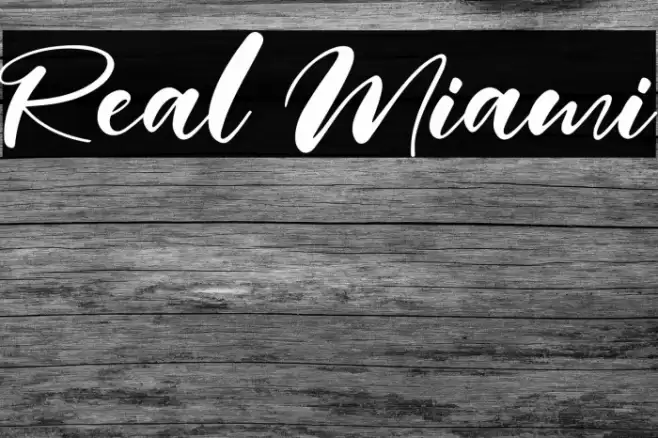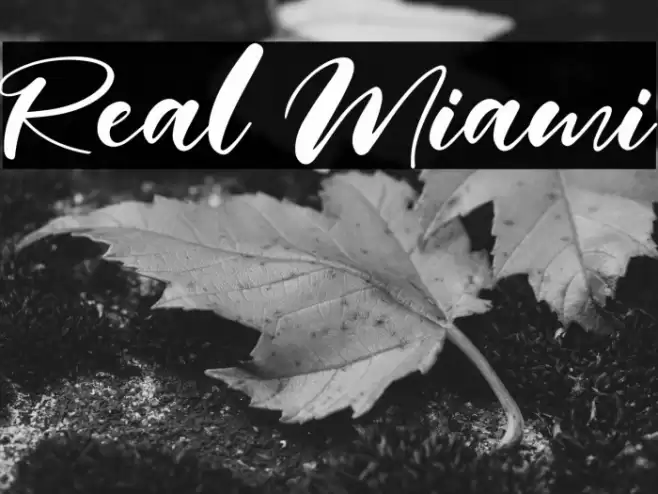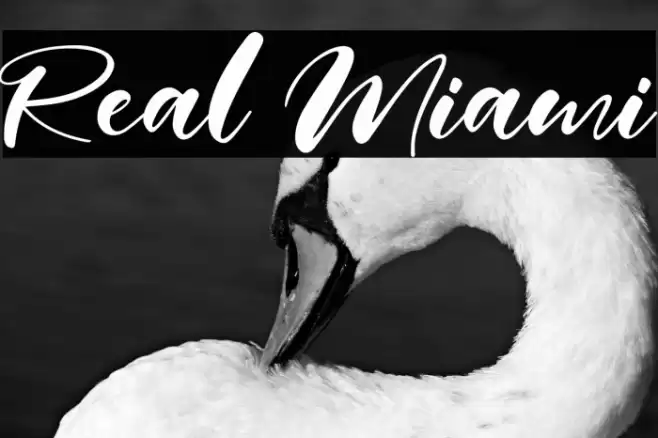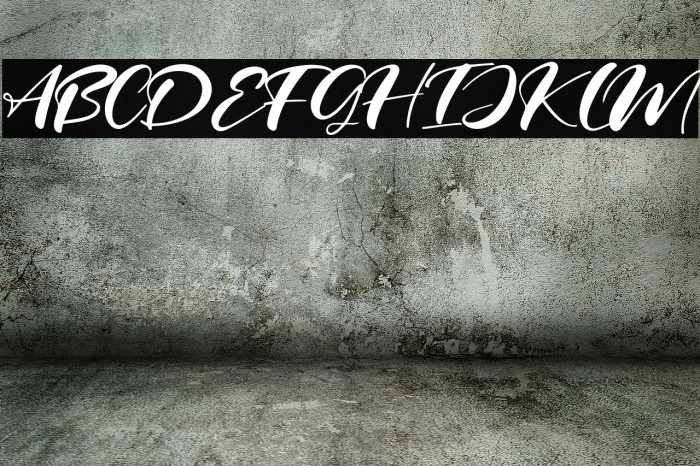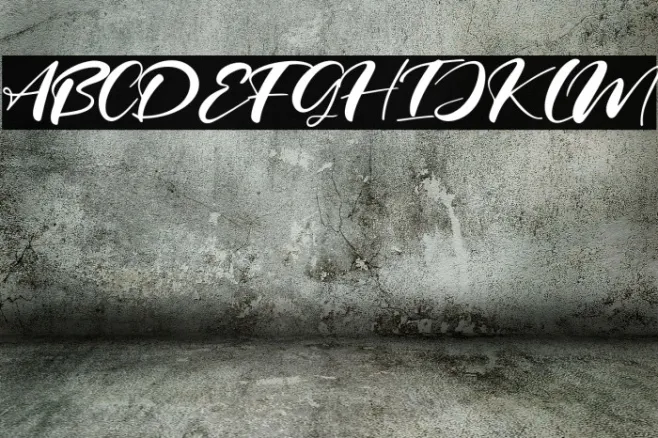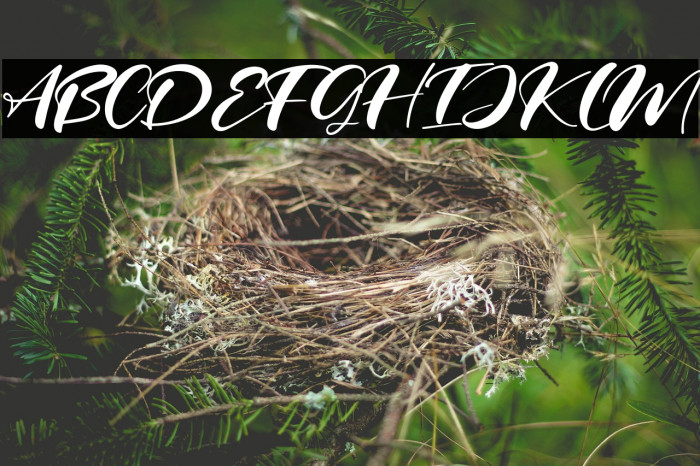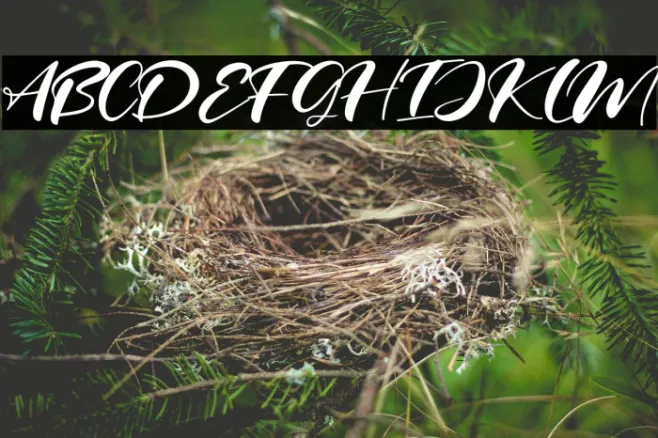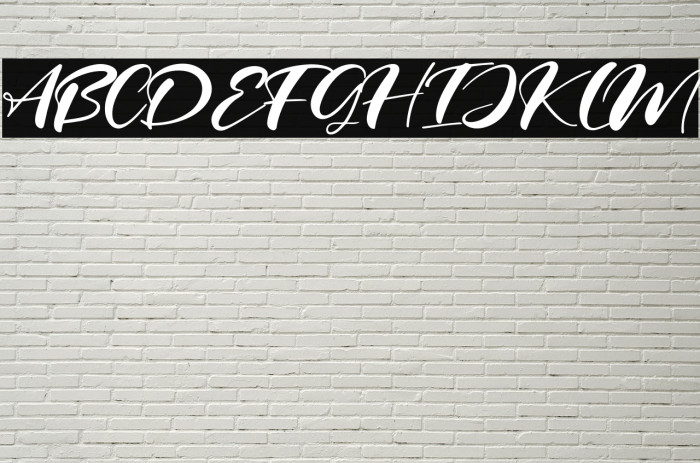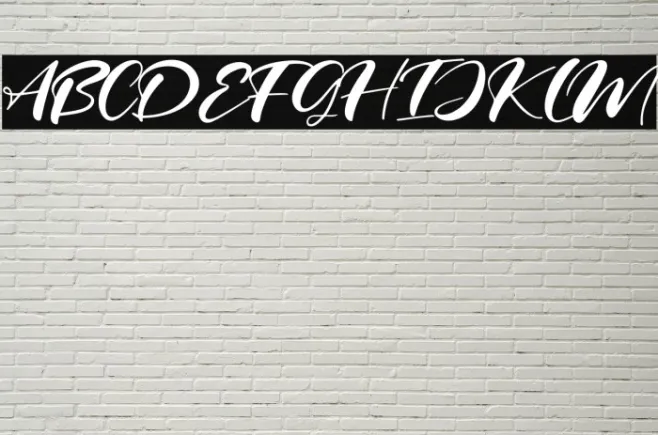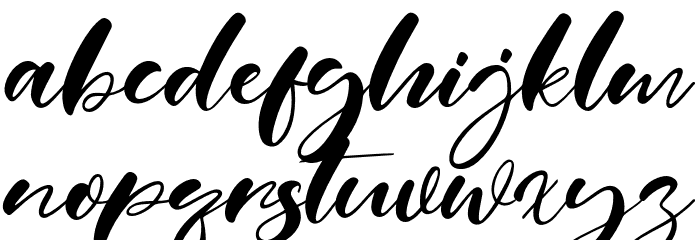
Real Miami Font
Real Miami Description
This font exudes a dynamic and energetic style with its bold, flowing script. The characters are crafted with a sense of movement, featuring sweeping curves and elegant loops that give it a handwritten feel. The uppercase letters are particularly striking, with their dramatic flourishes and varying line thicknesses, while the lowercase letters maintain a cohesive and fluid appearance. Numbers and special characters are designed to match the overall aesthetic, ensuring consistency across all elements. This font is ideal for projects that require a touch of sophistication and flair.
A bold, flowing script font with dynamic curves and elegant loops from Uncategorized fonts.
- Proposed Projects: Ideal for wedding invitations, branding, logos, and elegant packaging designs.
- Use Case: Logos, Headlines, Invitations